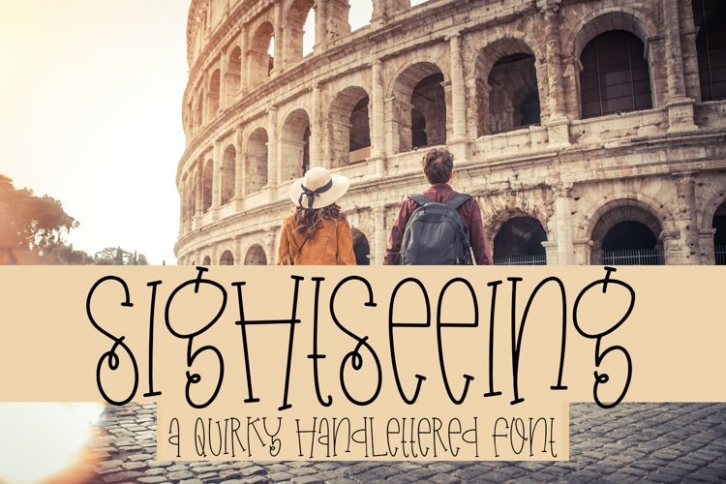
Sightseeing is a trendy and unique font with an authentic style. It was designed by plusstore and it's a great choice for creative people who need such a font. It was released on June 16, 2021 and the file size is 12.21 MB. Sightseeing will add an organic vibe to any design idea!